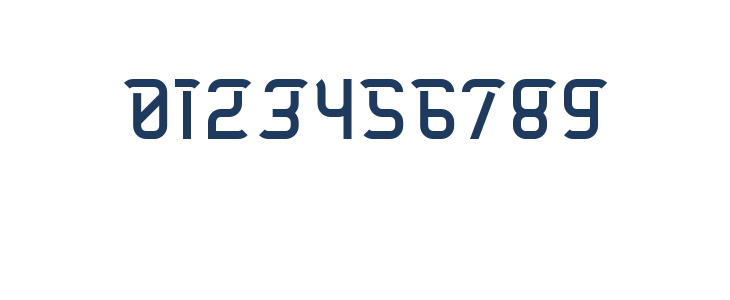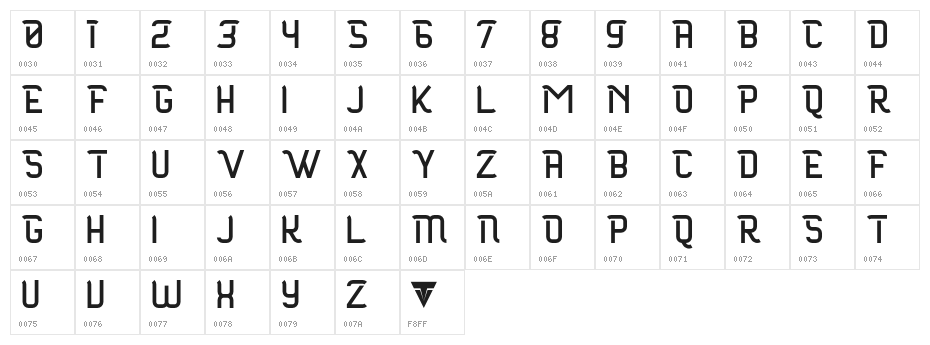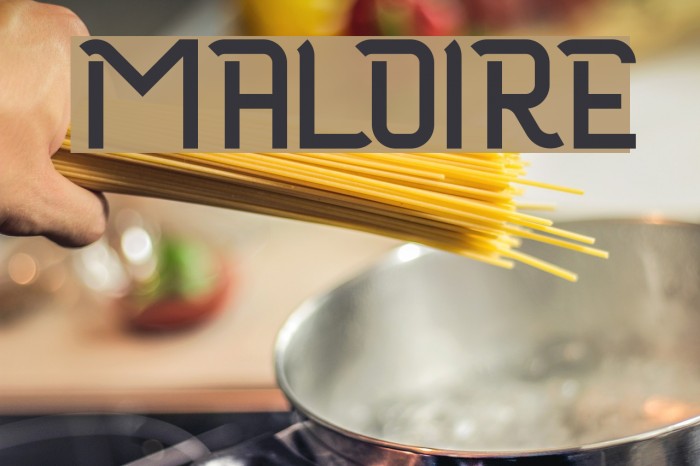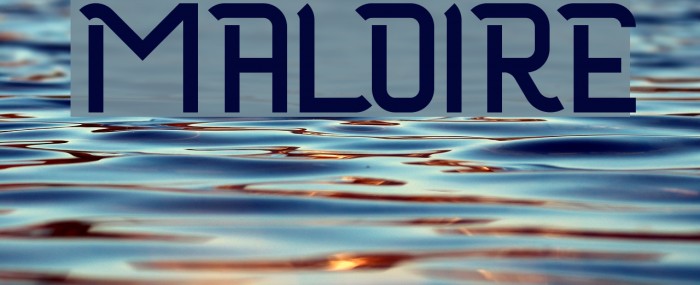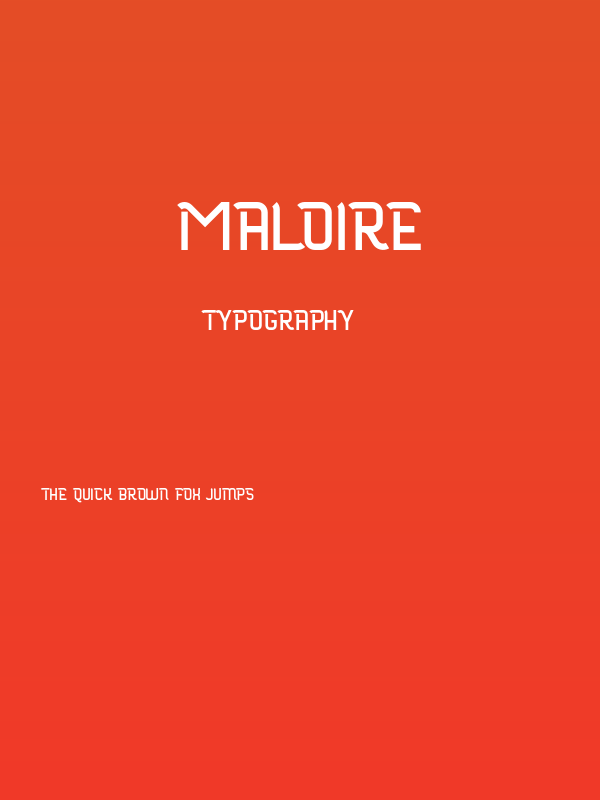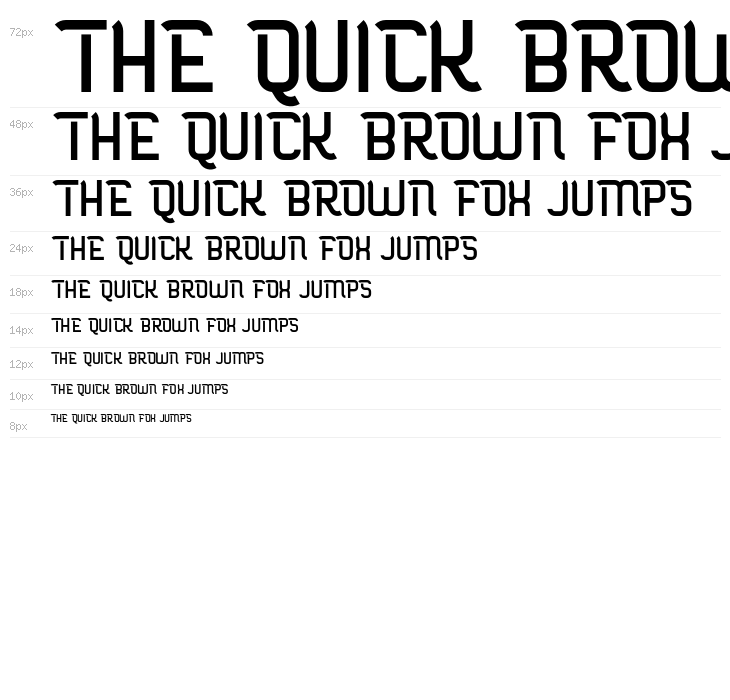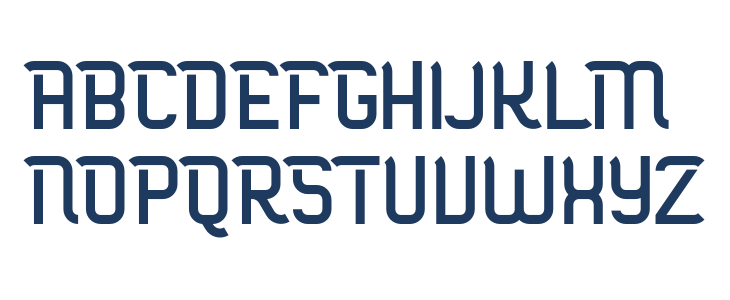
Maloire Font
Maloire Description
This font features a bold and modern design with a unique geometric style. The characters are constructed with sharp angles and clean lines, giving it a futuristic and industrial appearance. The uppercase and lowercase letters maintain a consistent height, while the numerals and special characters follow the same angular theme. The font's distinct style makes it stand out, with each character having a strong presence. The overall look is both sleek and assertive, making it suitable for projects that require a contemporary and edgy aesthetic.
| Proposed Projects | Ideal for branding, posters, technology-related designs, and modern advertising. |